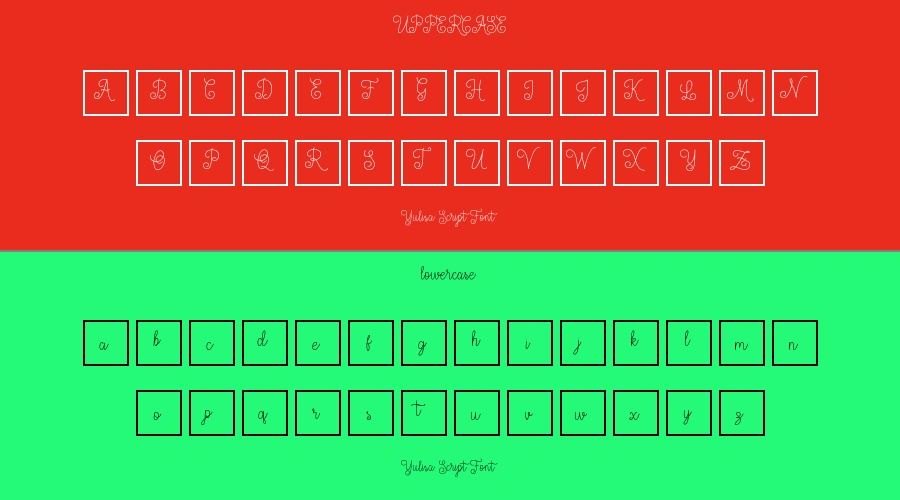
About Yulisa Script Font
Designed with precision, Yulisa Script Font merges creative flair with excellent legibility in every character. This versatility makes it particularly effective for print publications, where refinement and technical excellence directly impact communication quality. Each letterform demonstrates meticulous craftsmanship.
Technical excellence shines through elements like clean lines and ordinals, enhancing typographic versatility. In brand statements settings, Yulisa Script Font proves its worth through superior file efficiency. The thoughtful execution of shoulder shape and design philosophy ensures professional results.